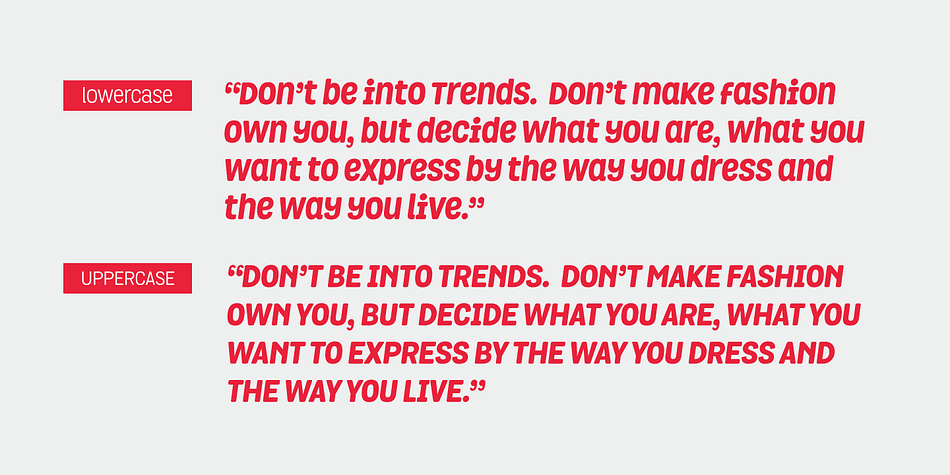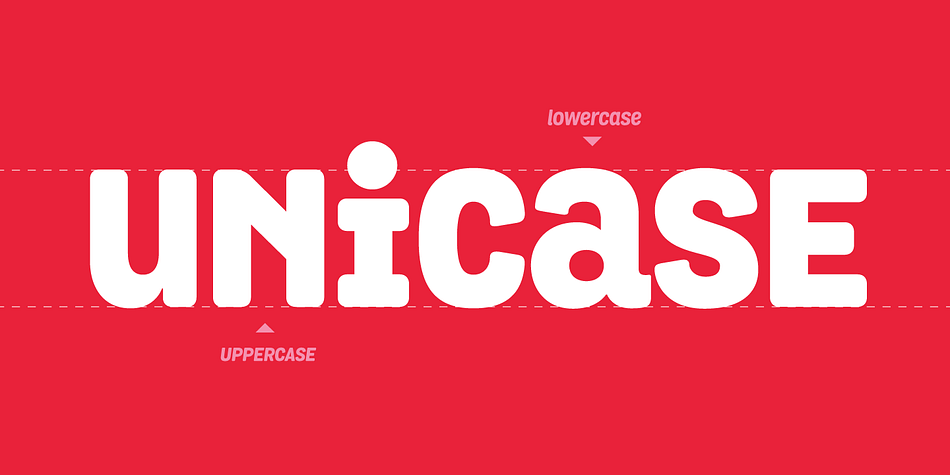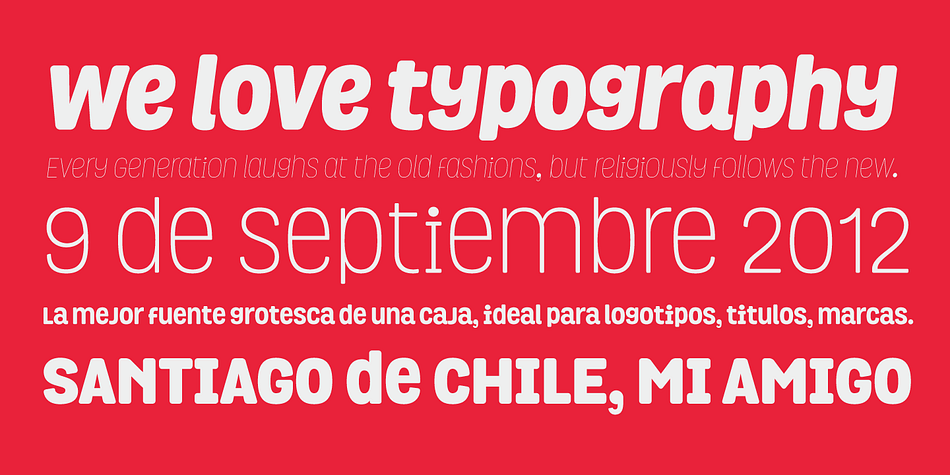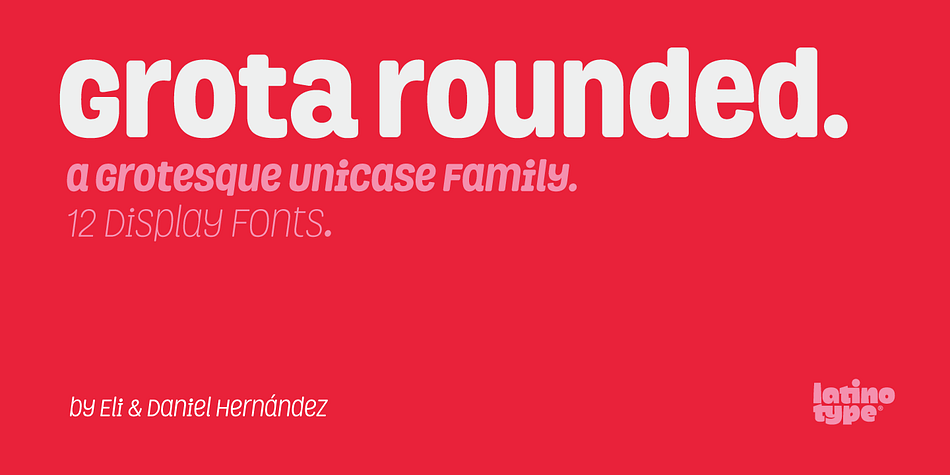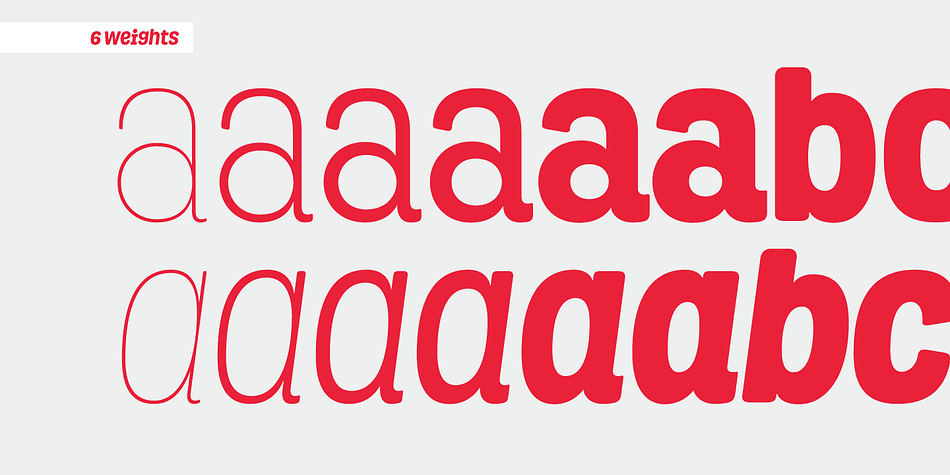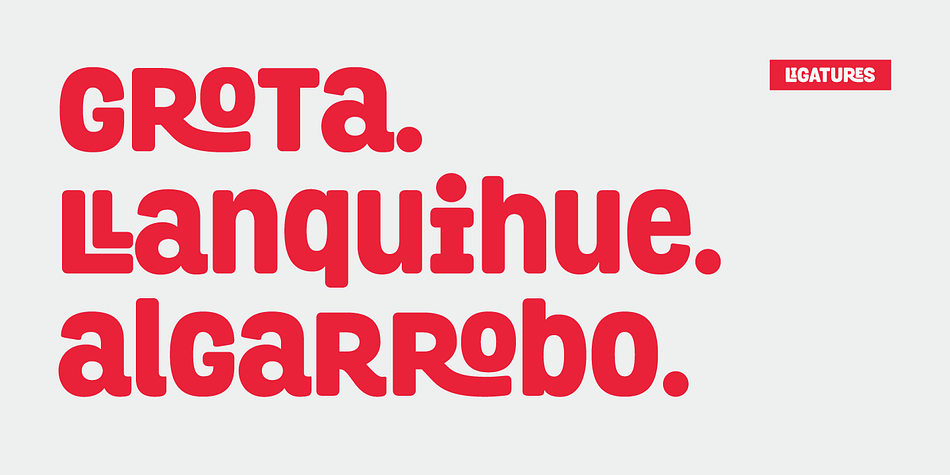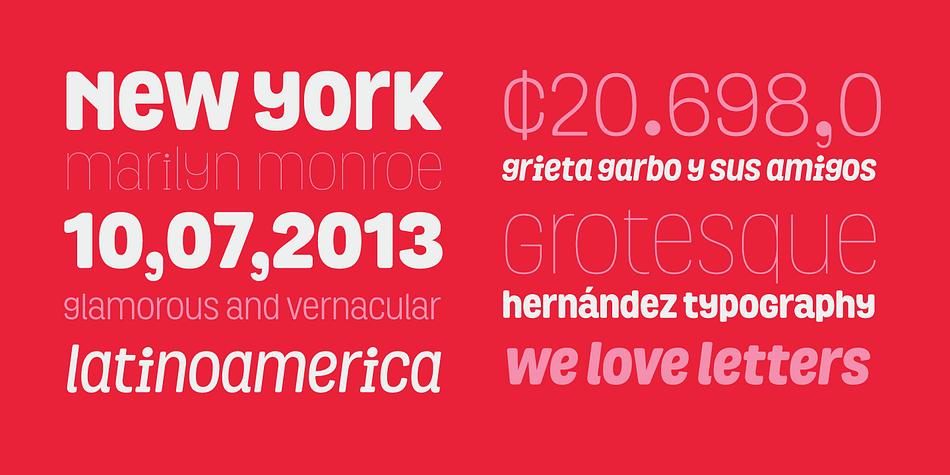
Grota Rounded is a display sans font family. This typeface has twelve styles and was published by Latinotype.
Grota Rounded is a very expressive font, has a gestural character inspired by the hand lettering.
Grota Rounded is grotesque, unicase and exceptional. It has six weights ranging from thin to black with their italics.
It is ideal for logos, brands, magazines, headlines, books. etc.